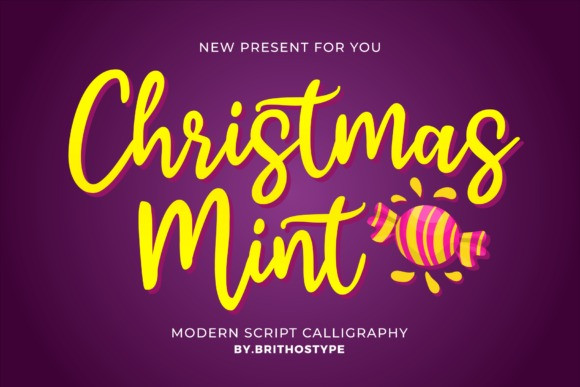
Christmas Mint Calligraphy Font
Christmas Mint is a friendly, fresh, rich, and elegant handwritten font. It is ideal for holiday-themed greeting cards and for any crafting project that requires a romantic touch.